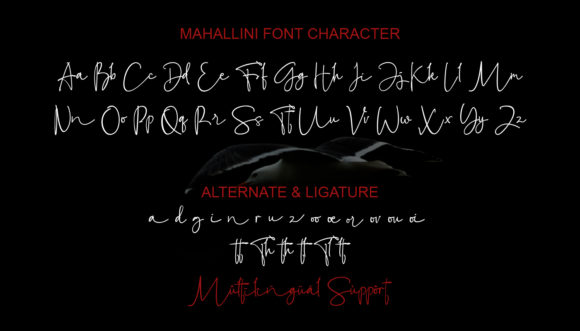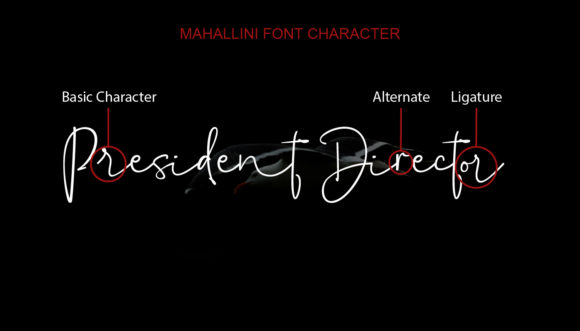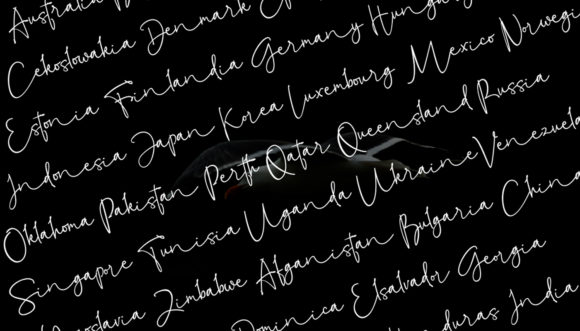
Introduction to Mahallini Font
As a designer, there’s nothing quite like the thrill of bringing a creative project to life. You’ve spent hours pouring over designs, tweaking every detail, and perfecting the perfect look. And then, it happens – you stumble upon the perfect font, the one that elevates your entire project and leaves a lasting impression. For many of us, that font is the Mahallini Font, an exquisite handwritten font that combines classy calligraphic influences with a fresh, contemporary feel.
Whether you’re working on a high-quality brochure, a website with a transparent background, or any other design project, the Mahallini Font is an invaluable design resource. Its versatility and charm make it a true favorite among designers, and with its free download available, it’s within reach of creatives everywhere.
Key Features of Mahallini Font
- High-quality, elegant design suitable for creative projects and modern designs.
- Unique characteristics include its delicate, cursive script and subtle nuances, perfect for adding a touch of elegance to any design.
Honest Review: Mahallini Font
I recently had the chance to work with the Mahallini Font, and I must say it’s a high-quality addition to any design project. Whether you’re working on a creative project or need a reliable design resource, this font is worth considering.
What works well is the Mahallini Font’s versatility. It comes with a transparent background, making it easy to use with various backgrounds and images. This feature is especially useful when working on designs with complex layers.
The font itself is clean, modern, and highly legible. It’s perfect for headings, titles, and body text. I also appreciate the fact that it’s available for free download, making it an excellent choice for designers on a budget.
- ✨ Clean and modern design
- ✨ Versatile and easy to use
One limitation I noticed is that the Mahallini Font doesn’t come with a wide range of weights and styles. While this isn’t a deal-breaker, it’s something to consider when working on complex design projects.
Overall, I’m impressed with the Mahallini Font. It’s a reliable design resource that’s perfect for a variety of creative projects. With its high-quality design and transparent background, it’s definitely worth adding to your design arsenal.
The Mahallini Font is a high-quality design resource perfect for creative projects. Its unique style and transparent background make it an ideal choice for various design applications.
Tips for Getting the Most Out of Mahallini Font
Use the Mahallini Font for titles, headings, and other design elements where a unique and creative style is desired. Experiment with different font sizes and colors to create a visually appealing design.
The Mahallini Font is suitable for various design projects, including logos, branding materials, and digital graphics. Its high-quality design and transparent background make it an ideal choice for designers and artists looking for a unique and creative design resource.